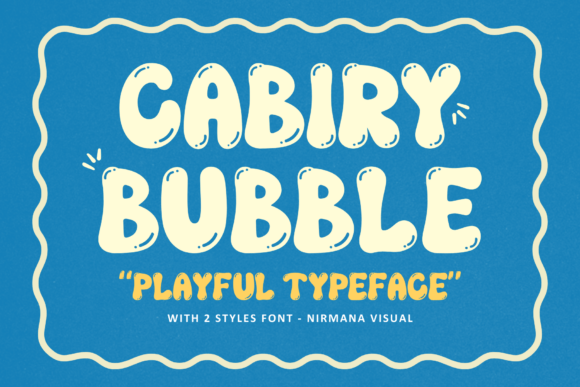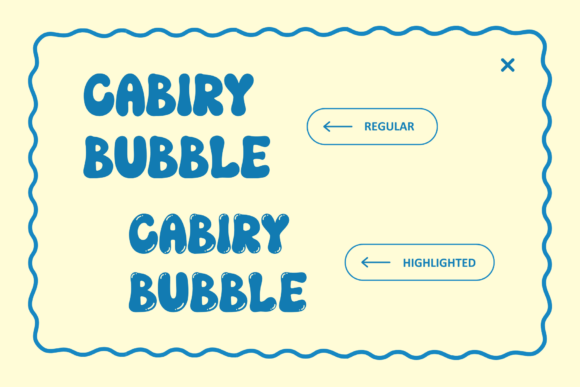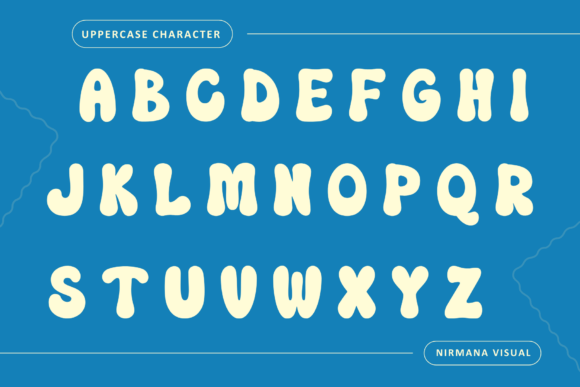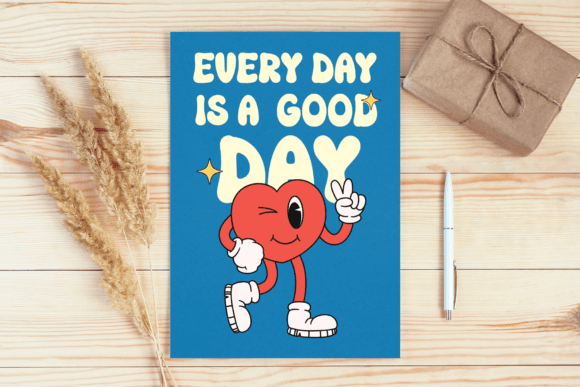
Cabiry Bubble Font: A Playful Display Font for Cricut & Craft Projects!
About the Cabiry Bubble Font
Unleash your creativity with Cabiry Bubble Font, a versatile font perfect for a wide range of applications. Cabiry Bubble is a playful and vibrant bubble font designed to bring fun and energy to your projects. With its rounded, oversized letters and cheerful personality, Cabiry Bubble is perfect for crafting eye-catching posters, children’s designs, logos, and social media graphics. Its bubbly and dynamic style makes it ideal for conveying a sense of joy and creativity. Whether used for headlines or decorative text, Cabiry Bubble adds a whimsical and lively touch to any design.
Cabiry Bubble thrives in applications demanding high visual impact, such as headlines, short slogans, and playful branding for children’s products or entertainment companies. Its oversized letterforms make it unsuitable for body text or lengthy paragraphs; readability suffers at smaller sizes. Avoid using it in user interfaces (UI) where clear legibility is paramount.
Its bubbly energy pairs well with clean sans-serif fonts like Open Sans for a balanced contrast, or a more geometric sans-serif such as Futura for a modern, slightly sophisticated feel. For a playful yet refined approach, consider pairing it with a delicate script font like Great Vibes.
Cabiry Bubble’s core personality is undeniably playful and optimistic, making it an excellent choice for projects needing a youthful and energetic feel. It’s best suited for brands that want to communicate joy, fun, and approachability.